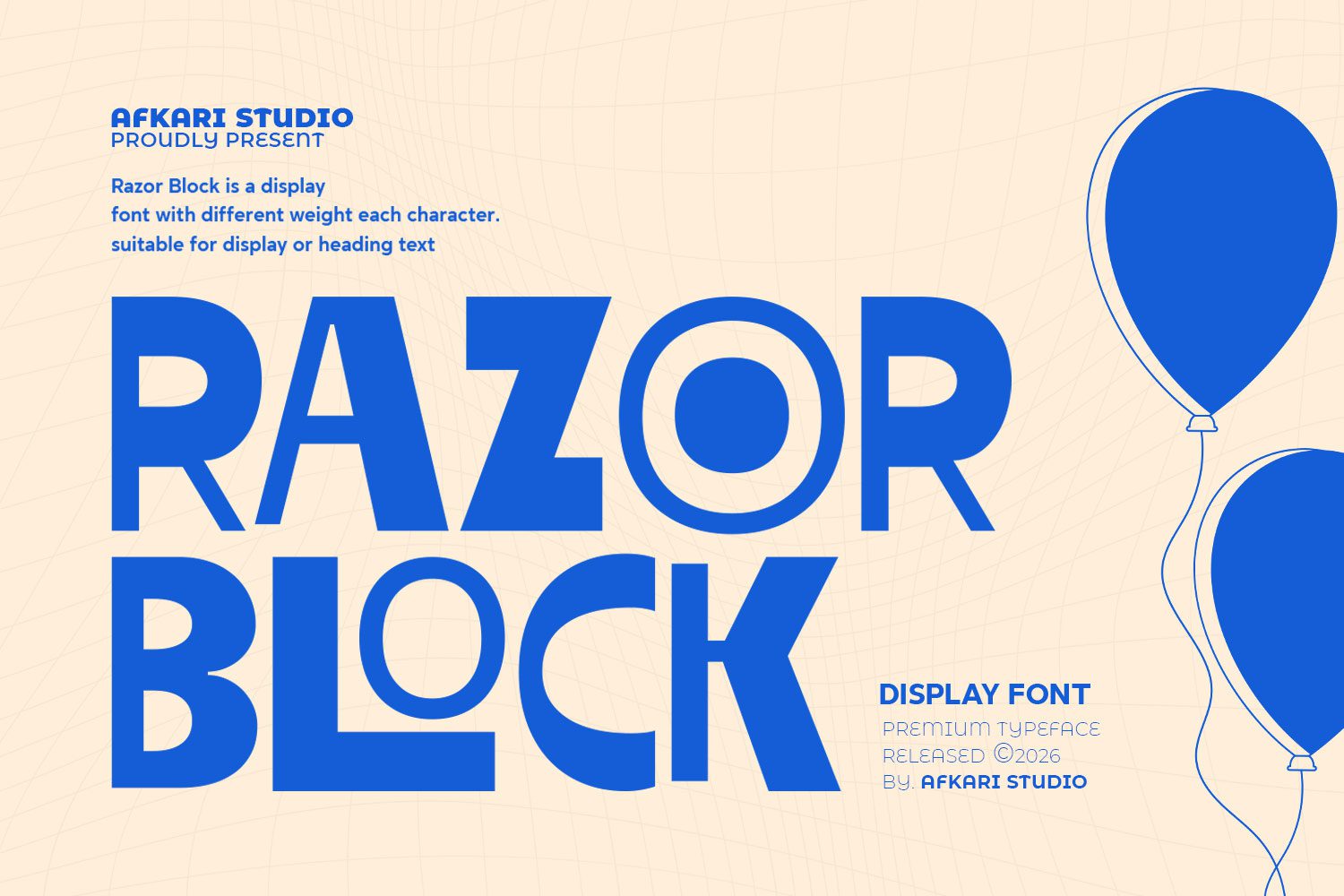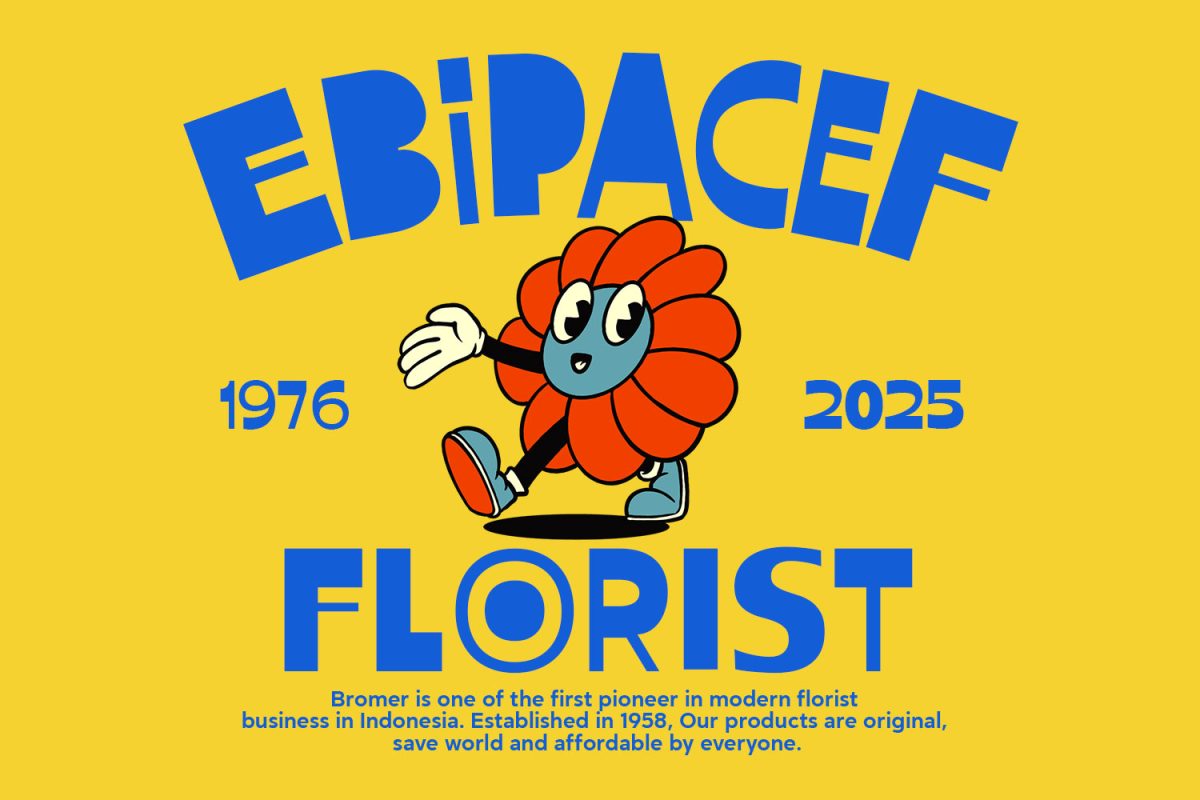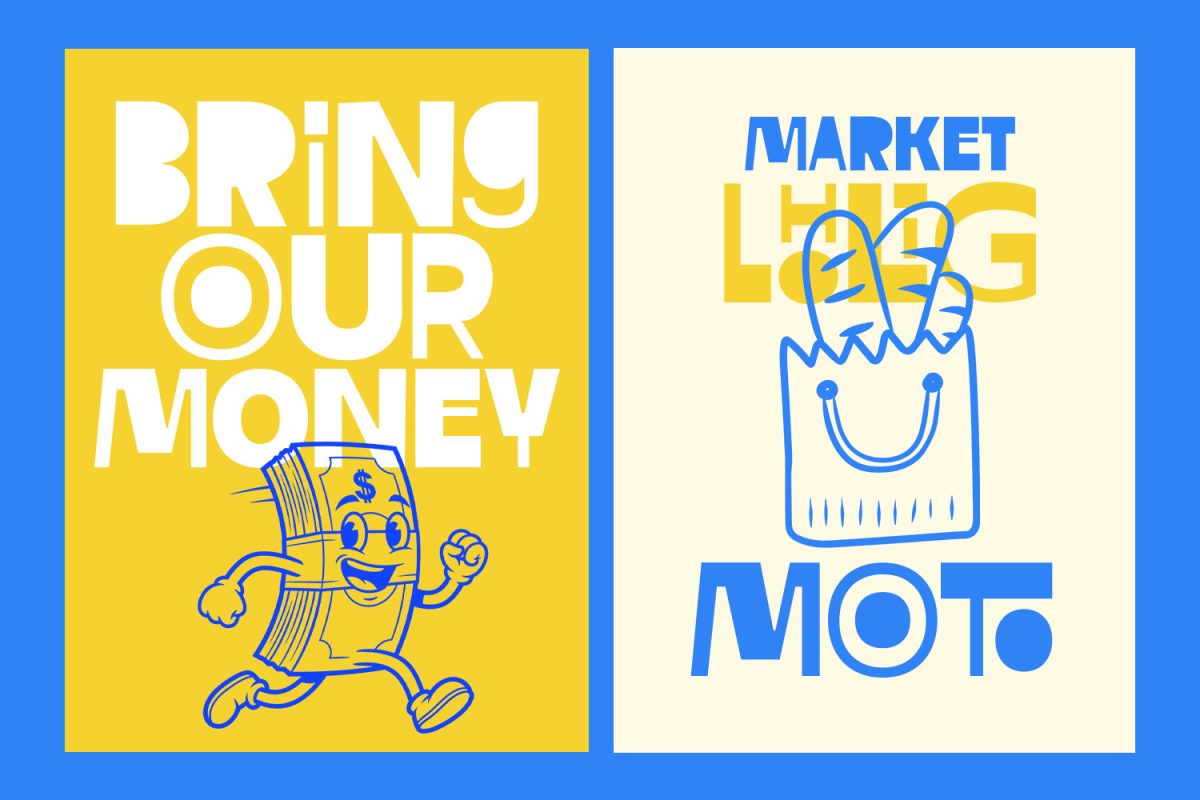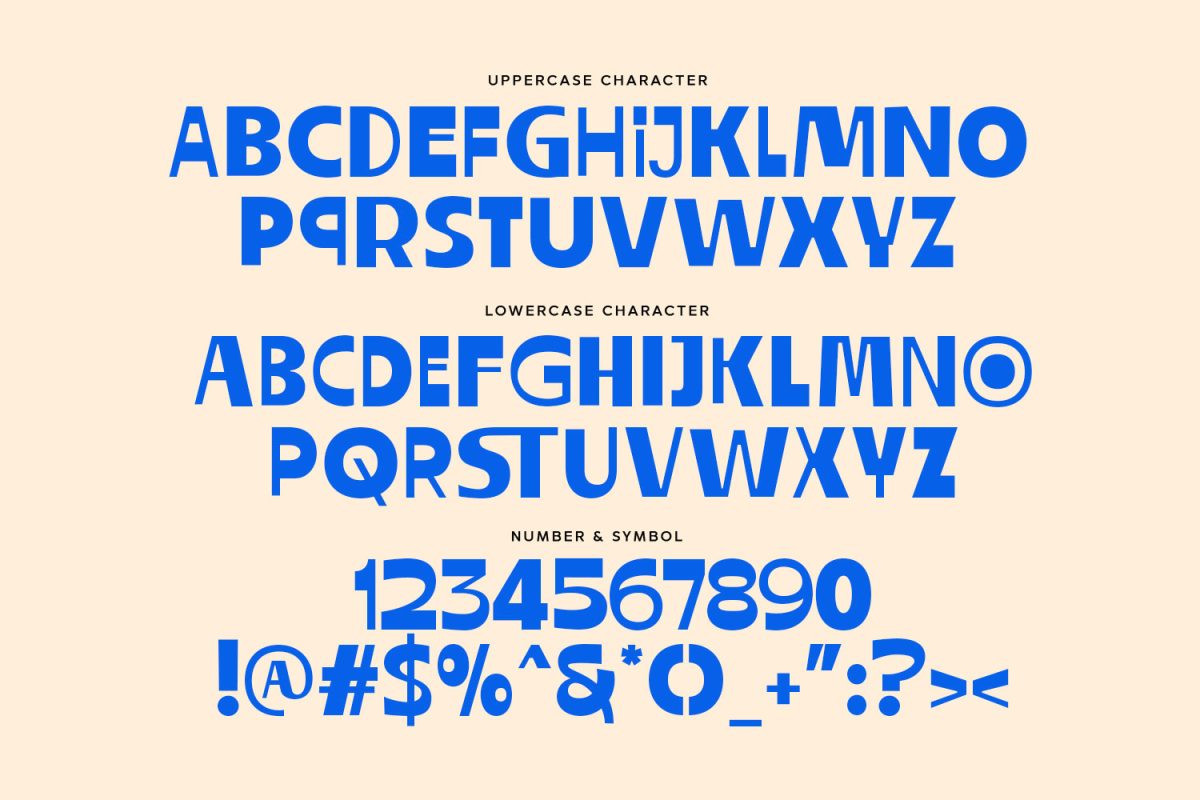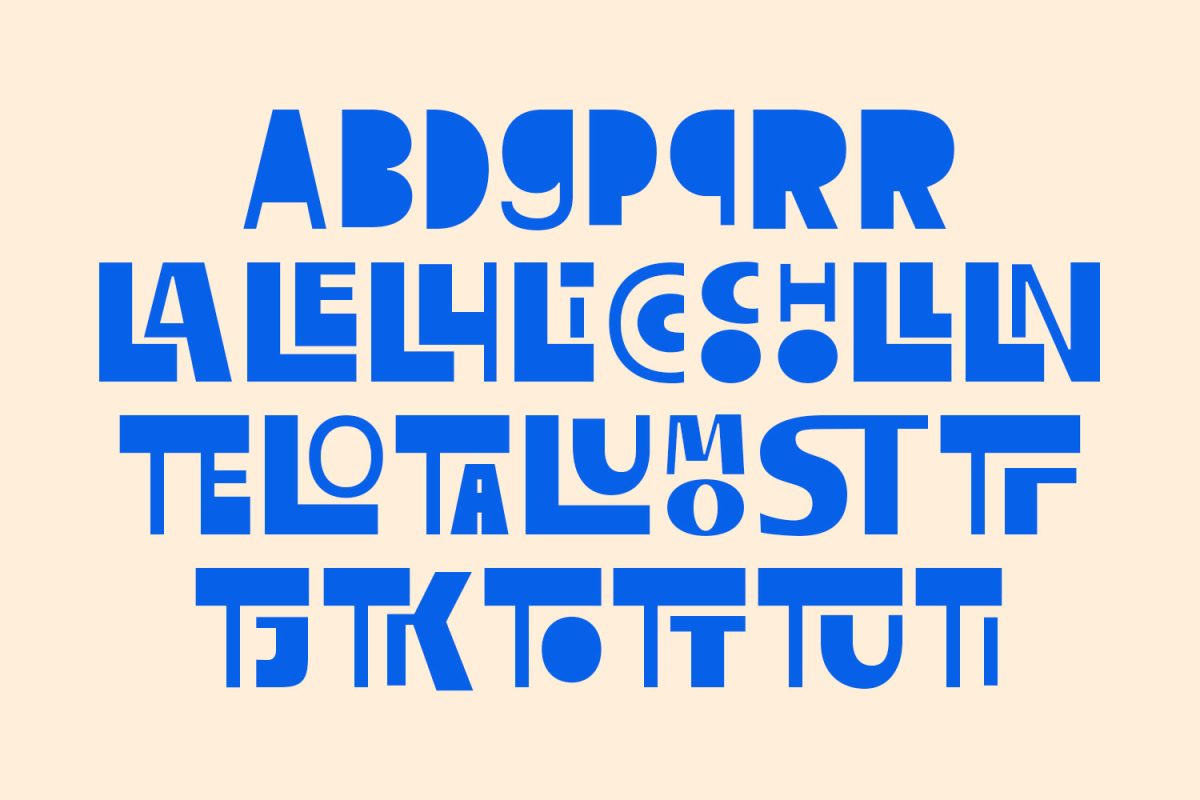
Razor Block – Unique Display Font with Mixed Weight Characters
Razor Block - Unique Display Font
Razor Block is a bold and unconventional display font designed to break the rules. What makes Razor Block truly unique is its mixed-weight character system—each letter carries a different visual weight, creating a dynamic, edgy, and experimental rhythm in every word.
This font delivers a powerful blocky appearance with sharp attitude, making it perfect for designs that demand attention. Razor Block is ideal for posters, headlines, branding, album covers, street-style visuals, and modern experimental typography where uniformity is not required—and personality is everything.
Razor Block is built for designers who want their type to feel raw, expressive, and fearless.
Highlighted Features:
• Uppercase, Lowercase, Number, and Punctuation
• Special alternates and ligatures
• Mültîlíñgúãl Sùppört for; ä ö ü Ä Ö Ü ß ¿ ¡
Make your typography stand out with Razor Block – Unique Display Font, where contrast and character take center stage.